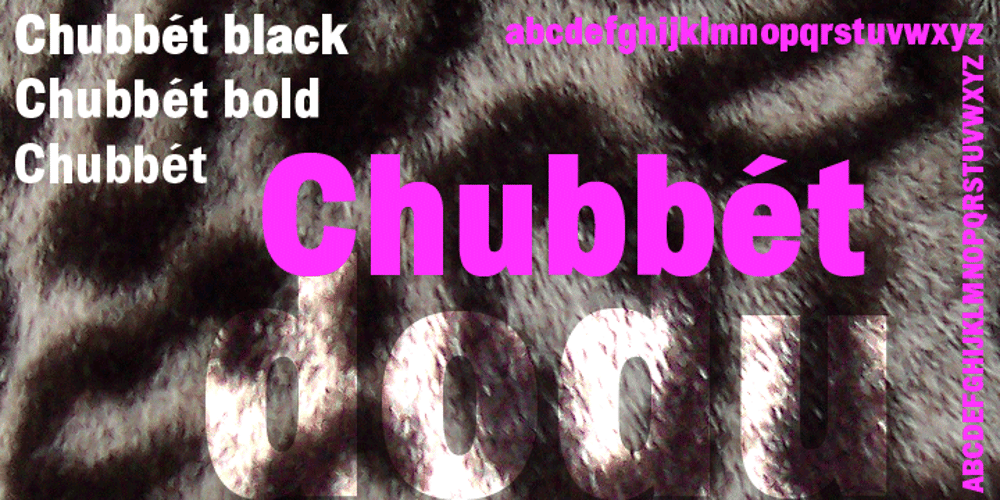
Chubbét Font Family was designed by Stephen Boss and published by Emboss. Chubbét contains 6 styles and family package options. Chubbét (pr. Chub-bay) is a typeface meant for heavy duty applications. The regular weight starts off quite plump, then it expands inward until there is a minimal amount of positive space.